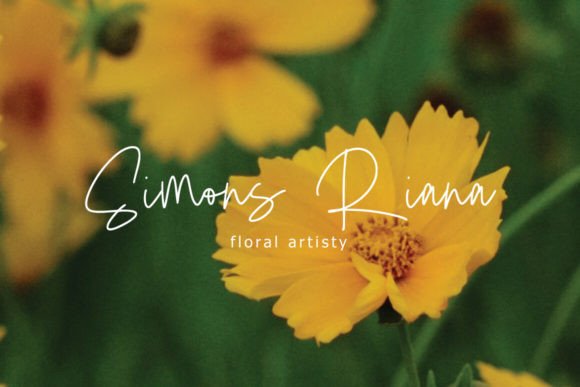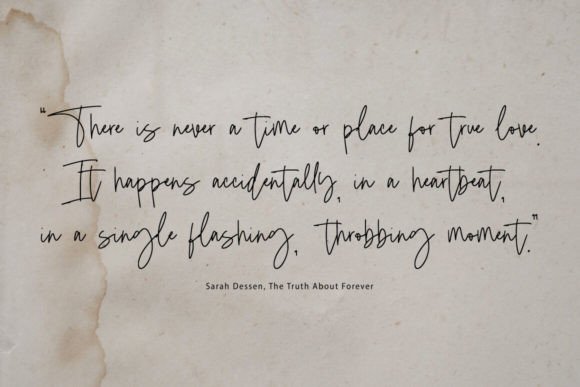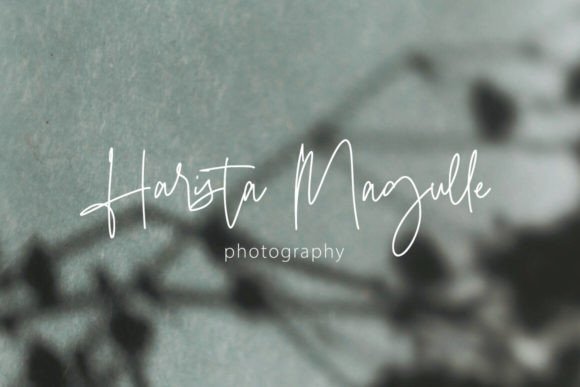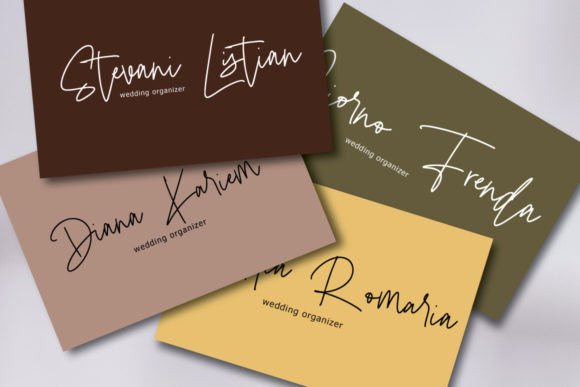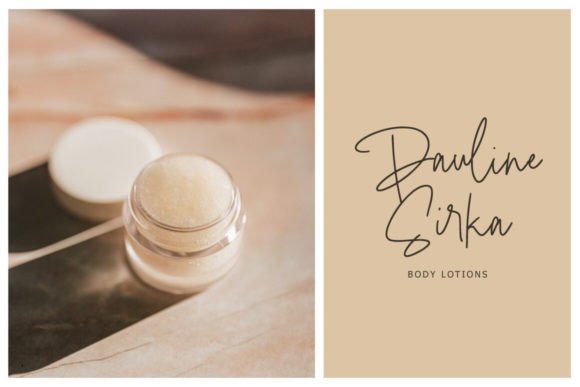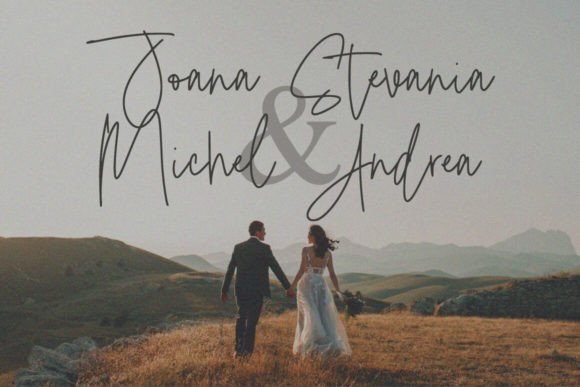
Introducing Dirallie Font: A Handmade Signature Style Masterpiece
Are you looking for a font that adds a touch of elegance and sophistication to your designs? Look no further than Dirallie Font, a beautiful handmade signature style font that is perfect for creating stunning invitations, greeting cards, branding materials, business cards, quotes, posters, and more.
What Makes Dirallie Font Special?
Dirallie Signature is a decorative font that features a dancing baseline, giving it a unique and playful feel. The font comes with over 200 glyphs, including alternative characters that can be accessed using Open Type features such as Swash, Stylistic Sets, Stylistic Alternates, and Ligature. This means that designers and crafters have a wide range of options to choose from, allowing them to create truly unique and customized designs.
Open Type Features
One of the standout features of Dirallie Font is its Open Type features. These features can be accessed using Open Type savvy programs such as Adobe Illustrator, Adobe InDesign, Adobe Photoshop, Corel Draw X version, and Microsoft Word. This makes it easy for designers to access the alternative characters and create stunning designs. The Open Type features include:
- Swash: adds a decorative touch to your text
- Stylistic Sets: allows you to choose from different stylistic sets to create a unique look
- Stylistic Alternates: provides alternative characters to add variety to your text
- Ligature: combines two or more characters to create a single glyph
PUA Unicode: Easy Access to Alternate Characters
Dirallie Font has been given PUA unicode, which means that all the alternate characters can be easily accessed in full by crafters and designers. This makes it easy to create customized designs without having to worry about complicated font editing software.
Dirallie Font is perfect for designers and crafters who want to add a touch of elegance and sophistication to their designs. The font is ideal for:
- Invitations: create stunning wedding invitations, birthday invitations, and more
- Greeting cards: add a personal touch to your greeting cards
- Branding materials: create unique and memorable branding materials
- Business cards: stand out from the crowd with a beautifully designed business card
- Quotes: add a touch of elegance to your quotes and posters
- Posters: create stunning posters that grab attention
Tips for Using Dirallie Font
Here are some tips for using Dirallie Font:
- Experiment with different Open Type features to create unique designs
- Use the font for headlines and titles to add a touch of elegance
- Pair the font with a simple sans-serif font for a beautiful contrast
- Use the font to create custom quotes and posters
Dirallie Font is a beautiful handmade signature style font that is perfect for designers and crafters who want to add a touch of elegance and sophistication to their designs. With its unique dancing baseline, Open Type features, and PUA unicode, Dirallie Font is a versatile font that can be used for a wide range of design projects. Whether you’re creating invitations, greeting cards, branding materials, or posters, Dirallie Font is sure to impress.